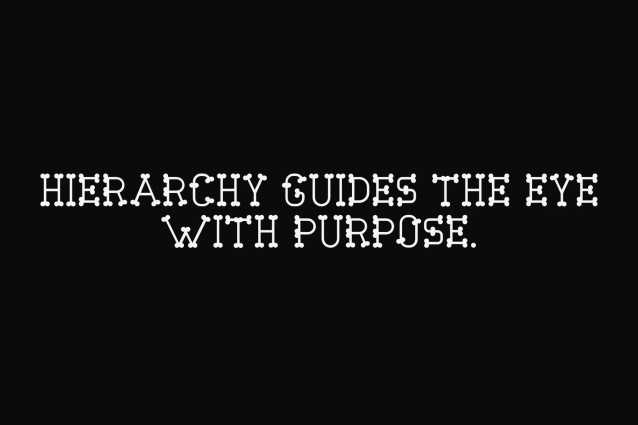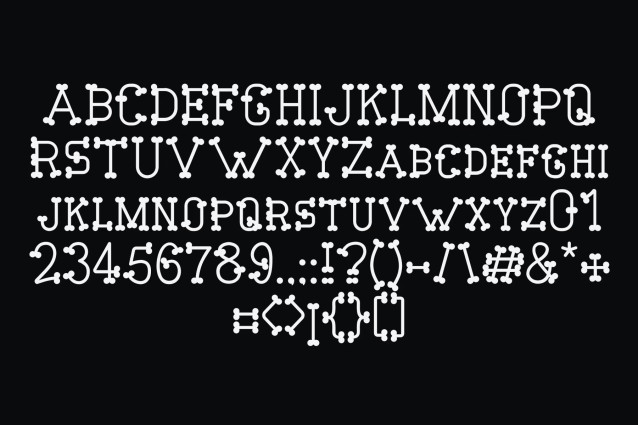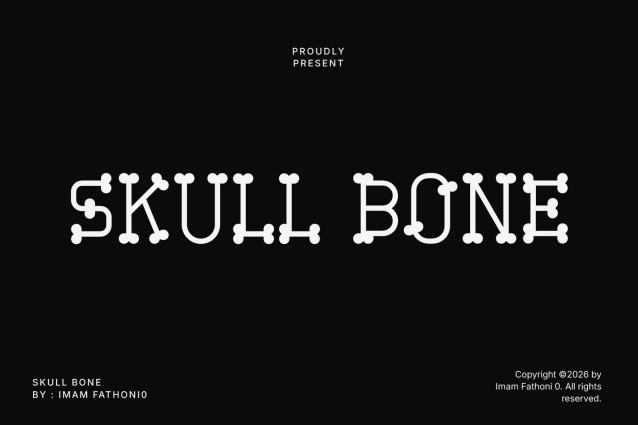
Skull Bone Font
Skull Bone is a display font built from bone-shaped strokes, with jointed, rounded ends that mimic the structure of skeletal remains. Its stark, unsettling silhouette delivers a bold gothic edge, ideal for horror and Halloween-themed designs that need to feel dark and dangerous at first glance.
Perfect For
Halloween decor and invitations, horror movie posters, metal band merch, gothic branding, tattoo studio logos, haunted house signage, skull-themed apparel and streetwear, game and book covers, spooky party decorations, dark-themed social media content.